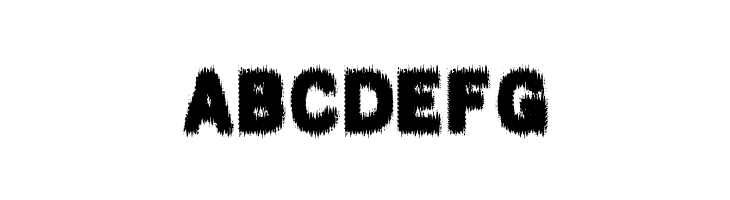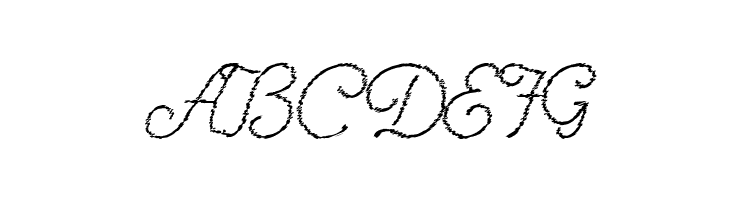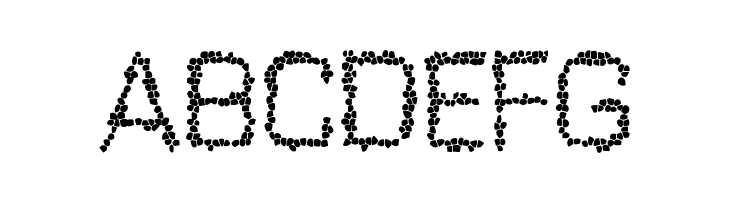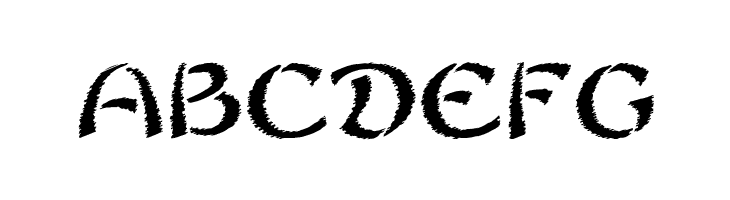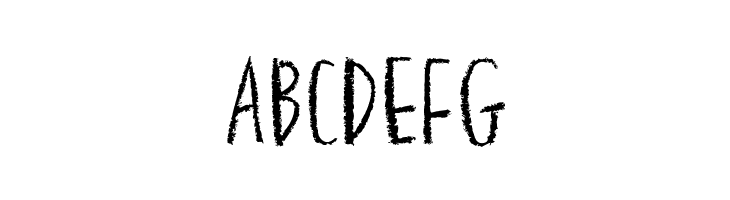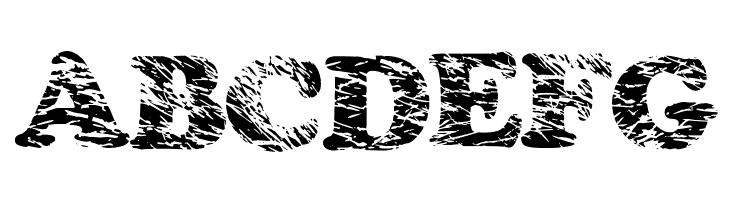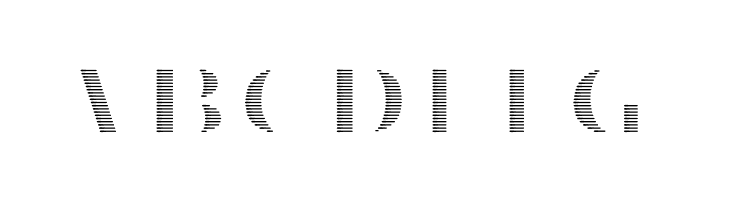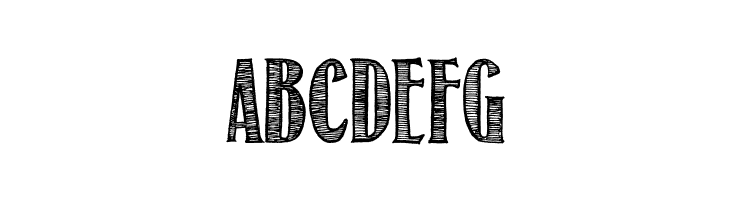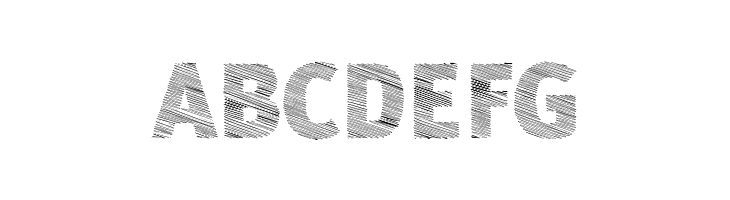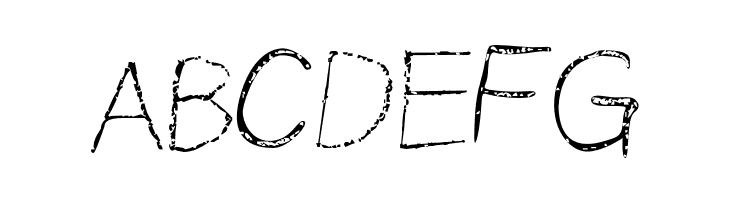
A mosaic-patterned font with characters formed by small dots, offering a textured and artistic look.
A bold, textured font with a distressed, stormy appearance.
A carved, textured serif font with a modern twist.
A textured, sketch-like serif font with a hand-drawn, artistic feel.
A bold, hand-drawn font with a textured, sketch-like appearance.
A bold, heavy font with a unique textured pattern for dynamic visual appeal.
A bold, textured font with diagonal line patterns for a dynamic look.
A thin, pencil-like handwritten font with a casual and textured appearance.
A playful, textured font with a knitted pattern and bold, rounded characters.
A distressed, grungy font with rough, textured edges and a chaotic appearance.
A bold, textured font with a brush-like, hand-drawn appearance.
A textured, playful font with an organic, stippled appearance.
A bold, distressed font with a grunge, textured appearance.
A distressed, grunge-style font with a textured, vintage appearance.
A rugged, textured font with a natural, handcrafted appearance.
A bold, distressed font with a textured, grunge effect for a rugged, vintage look.
A bold, distressed font with a grunge aesthetic and textured appearance.
A bold, brush-style font with a hand-drawn, textured appearance.
A bold, distressed font with a hand-drawn, textured appearance.
A modern, striped font with angular shapes and a dynamic, textured appearance.